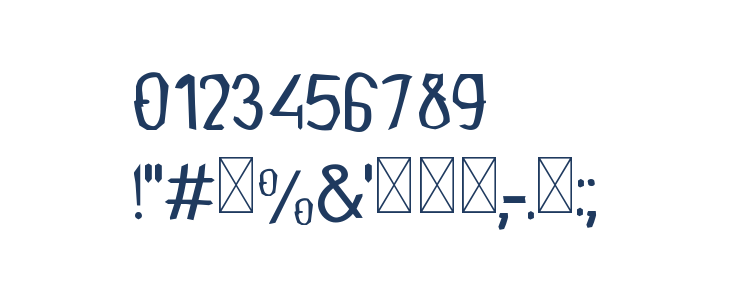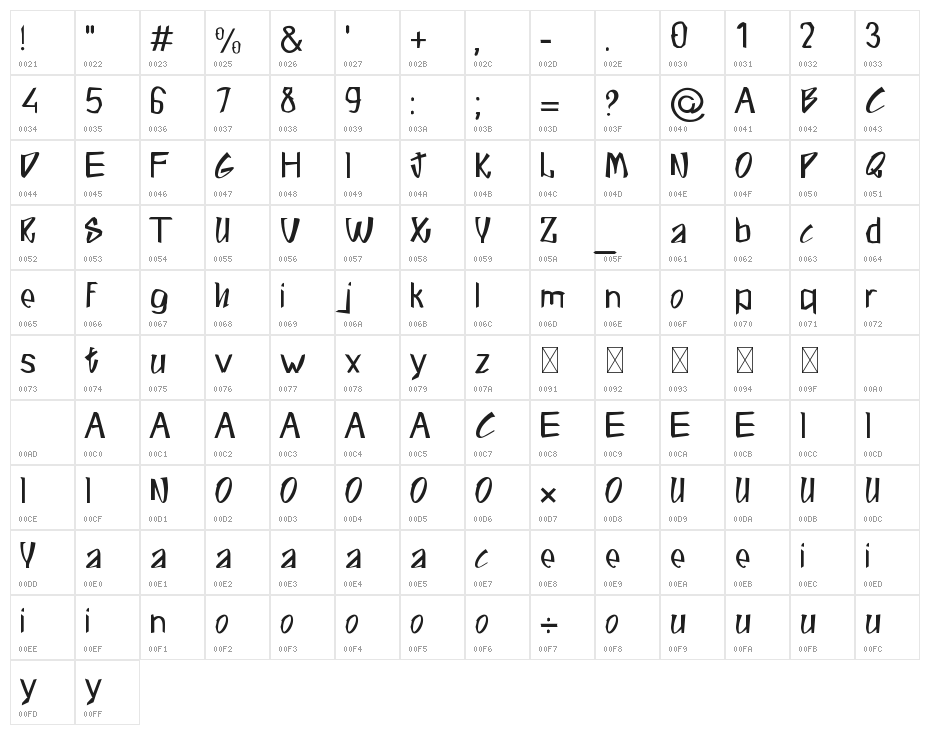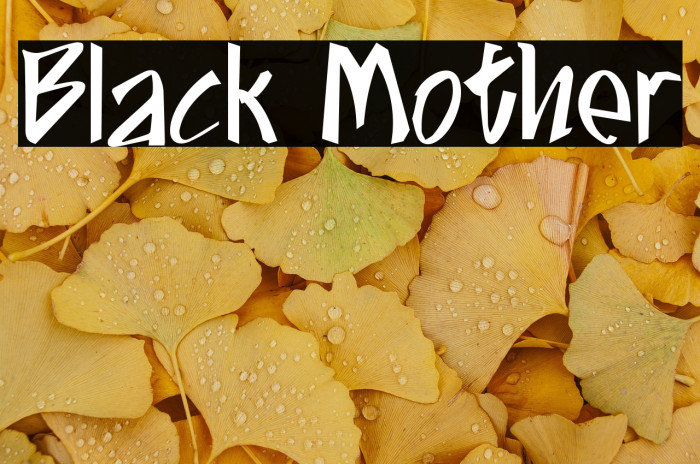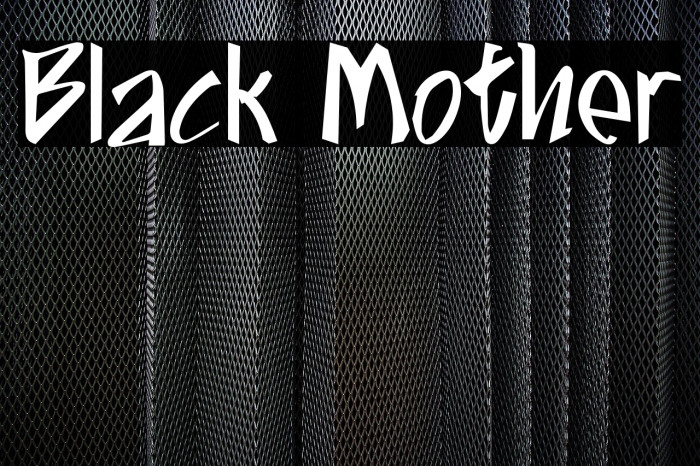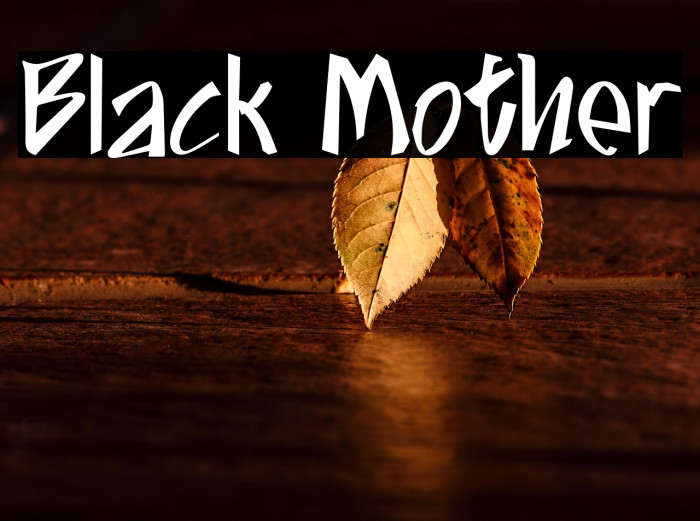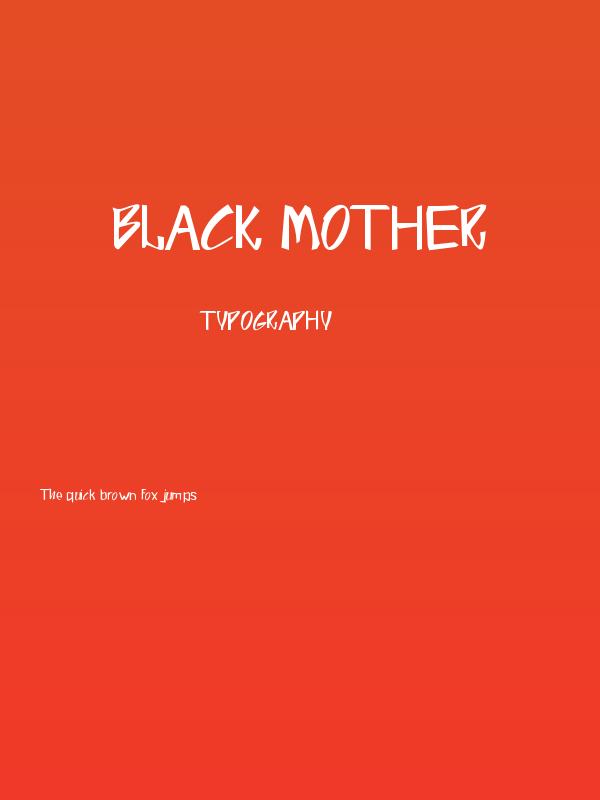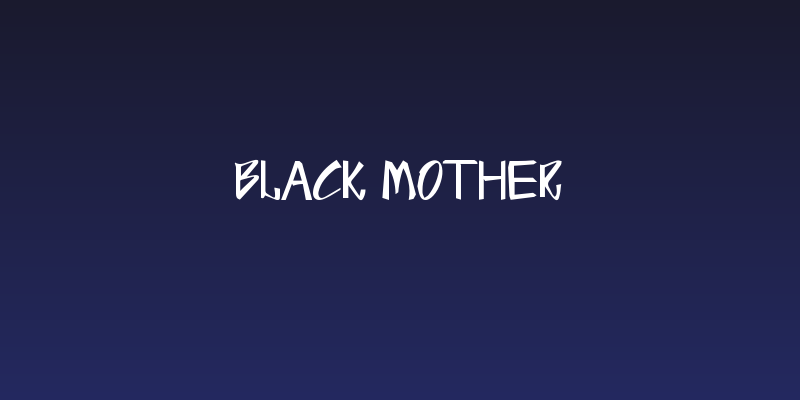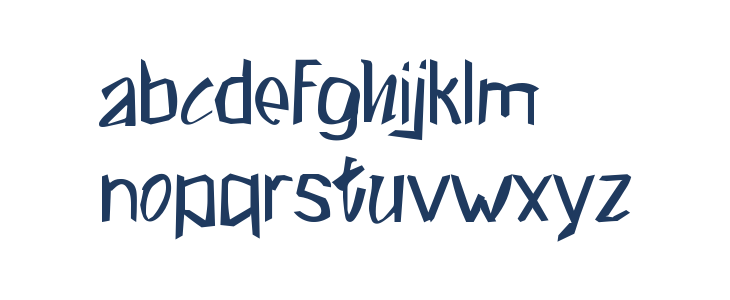
Black Mother Font
Black Mother Description
This font features a bold and dynamic style with a hand-drawn aesthetic. The characters are slightly irregular, giving them a playful and energetic feel. The uppercase letters are tall and commanding, while the lowercase letters maintain a consistent flow. Numbers and special characters are designed to match the overall lively and informal tone. The strokes are thick and varied, adding to the font's unique personality. This font is ideal for projects that require a touch of creativity and fun, making it perfect for artistic and informal applications.
| Proposed Projects | Ideal for posters, album covers, children's books, and creative branding. |